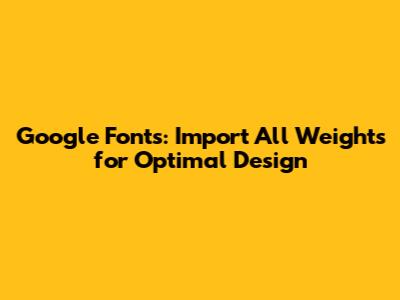
- Navigate to Google Fonts: Go to the Google Fonts website.
- Select Your Font: Browse or search for the font you want to use.
- Choose Weights: Click on the font to view its available weights. In the right sidebar, you'll see a list of styles (weights) that you can select. To import all weights, select each one individually.
- Embed Code: Once you've selected all the desired weights, Google Fonts will generate the HTML and CSS code for you. You can choose between
<link>and@importmethods. The<link>method is generally recommended for better performance. - Copy and Paste: Copy the generated code and paste it into your HTML
<head>section (for the<link>method) or into your CSS file (for the@importmethod).
Choosing the right fonts and font weights can significantly impact your website's or application's design and user experience. Google Fonts provides a vast library of free, open-source fonts that you can easily integrate into your projects. However, importing all weights of a font might not always be the best approach. In this article, we'll explore how to import Google Fonts with all their weights, discuss the implications, and provide guidance on when and how to do it effectively.
Understanding Font Weights
Before diving into the how-to, let's clarify what font weights are and why they matter. Font weight refers to the thickness of the characters in a typeface. It's typically represented numerically, with common values including 100 (Thin), 200 (Extra Light), 300 (Light), 400 (Regular), 500 (Medium), 600 (Semi-Bold), 700 (Bold), 800 (Extra Bold), and 900 (Black). Not all fonts offer the full spectrum of weights; some might only include Regular, Bold, and a couple of others. Using different font weights allows you to create visual hierarchy, emphasize important text, and enhance the overall readability and aesthetics of your design. For example, you might use a bold weight for headings, a regular weight for body text, and a lighter weight for captions or secondary information. The strategic use of font weights can guide the user's eye and improve the user interface.
Different weights can evoke different feelings. A lighter weight might feel more elegant or delicate, while a heavier weight can convey strength and importance. Therefore, choosing the appropriate weights is crucial for aligning the visual presentation with the message you want to communicate. When designing a website, consider the target audience and the brand identity. A playful brand might benefit from a wider range of weights to add variety and character, while a more professional brand might stick to a few carefully selected weights for a clean and consistent look. Also, think about the content itself. Long-form articles might require different weights for headings, subheadings, and body text to maintain readability and engagement. By thoughtfully selecting and applying font weights, you can create a more compelling and effective design that resonates with your audience.
How to Import Google Fonts with All Weights
There are several ways to import Google Fonts into your project, each with its own advantages and considerations. Here are the most common methods:
1. Using the Google Fonts Website
Example (<link> method):
Example (@import method):
CSS Usage:
2. Using the Google Fonts API in CSS
You can also directly specify the font weights in your CSS file using the @font-face rule. This method is more verbose but gives you more control over how the fonts are loaded and used.
/* Repeat the @font-face rule for each weight */
This approach requires you to find the specific URL for each font weight, which can be tedious. However, it allows you to host the font files locally if needed.
3. Using Google Fonts Loader
The Google Fonts Loader is a JavaScript library that provides more control over font loading. It allows you to specify which fonts and weights to load, and it can help optimize performance by loading fonts asynchronously.
Include the Library: Add the Google Fonts Loader script to your HTML file.
Configure the Loader: In the
CSS Usage: Use the fonts in your CSS as usual.